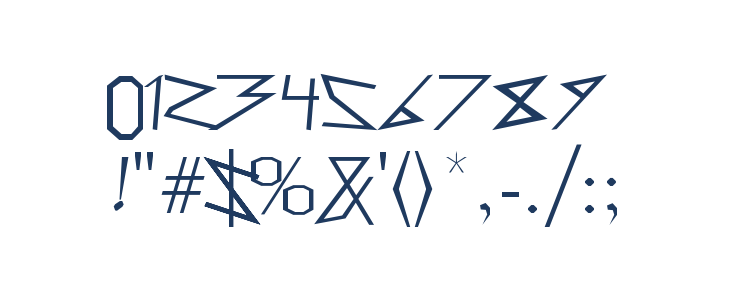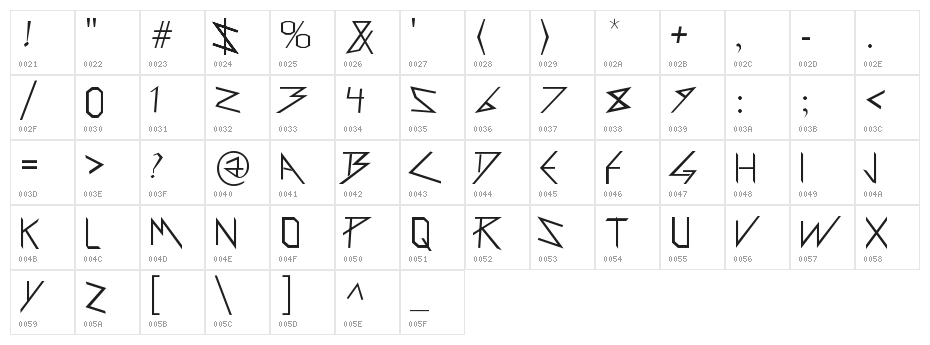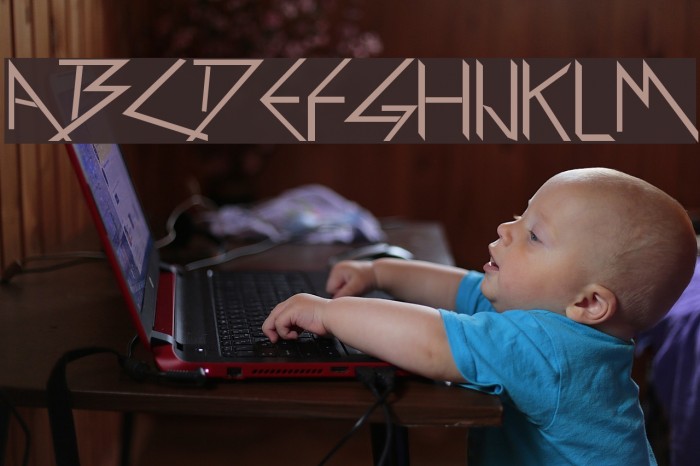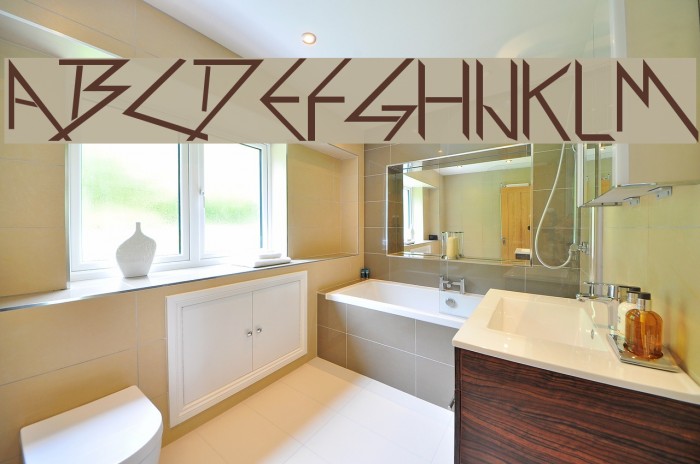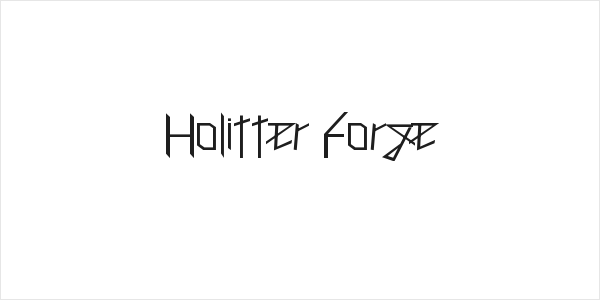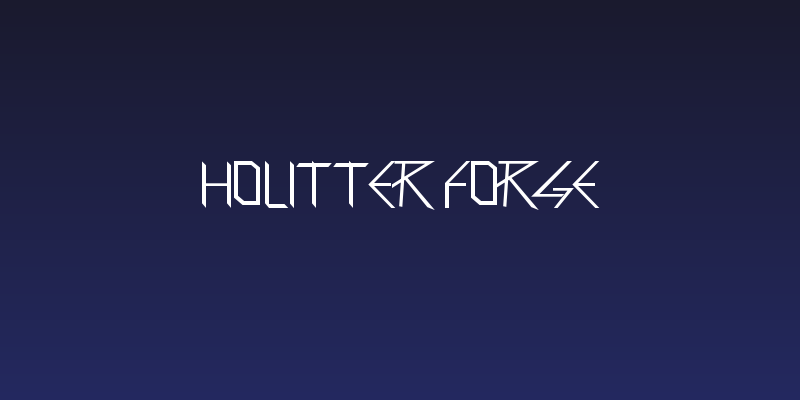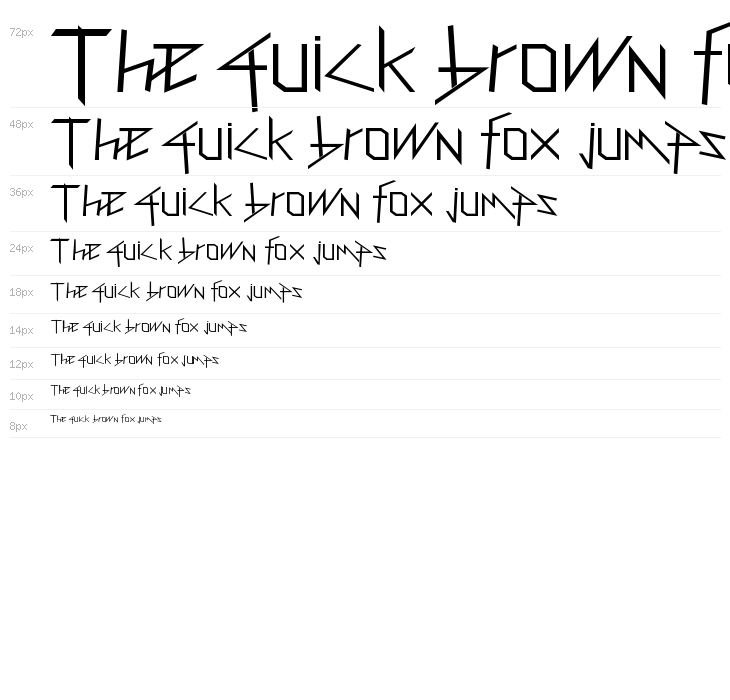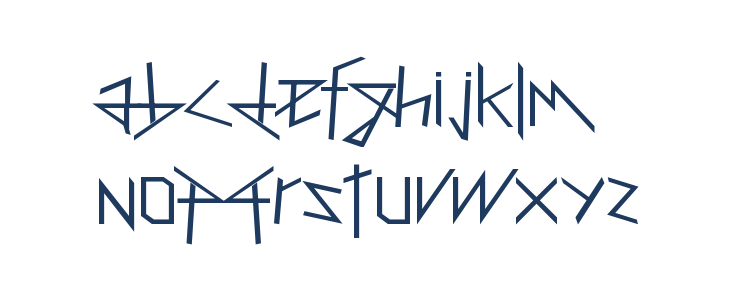
Holitter Forge Font
Holitter Forge Description
This font features a highly geometric and angular design, characterized by sharp edges and a bold presence. The letters are constructed with straight lines and acute angles, giving it a futuristic and edgy appearance. The uppercase and lowercase letters maintain a consistent style, with a unique approach to each character that emphasizes its distinctiveness. Numbers and special characters follow the same angular theme, ensuring uniformity across all elements. The font's design is striking and unconventional, making it ideal for projects that require a modern and avant-garde aesthetic.
| Proposed Projects | Ideal for sci-fi themed designs, modern posters, video game titles, and edgy branding projects. |